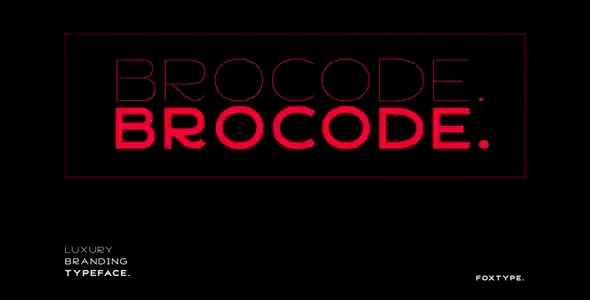
Brocode Display Premium Font
Brocode Display Premium Font Display is a stylish, modern and unique typeface with web fonts. It is a very versatile font that works great at both large and small sizes. Brocode Font would be perfect for branding, logos, headlines, subtitles. or simply as a text overlay }
Brocode Display Premium Font
Brocode Display Premium Font Display is a stylish, modern and unique typeface with web fonts. It is a very versatile font that works great at both large and small sizes. Brocode Font would be perfect for branding, logos, headlines, subtitles. or simply as a text overlay }